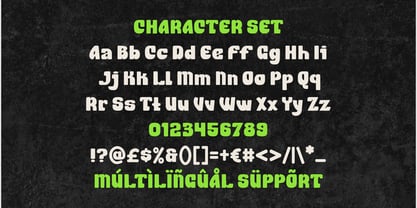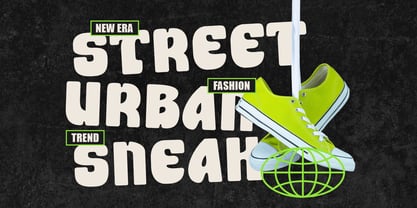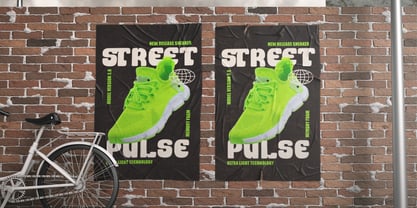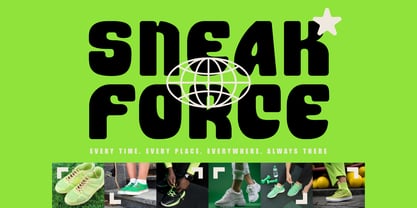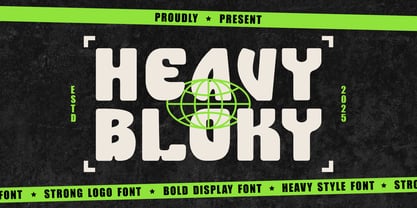
Heavy Bloky
by Shanaf
The Heavy Bloky Font Family was designed by Yesie Erma Yunita and published by Shanaf. Heavy Bloky contains 1 styles. More about this family
Heavy Bloky Strong Logo Font delivers a powerful visual punch with its extreme bold weight and compact structure. Each character is shaped with chunky proportions, firm curves, and wide silhouettes that demand attention in every layout. The font carries a heavy, dense appearance that feels both assertive and modern, making it ideal for branding that needs a confident and memorable voice. Its rounded block forms create a smooth rhythm, while the subtle quirks in letter shapes add a unique identity. The style leans firmly into bold display typography, offering a strong foundation for expressive logos, standout headlines, and impactful promotional designs. Heavy Bloky Strong Logo Font stays readable even at large scales, making it perfect for eye-catching posters, packaging, stickers, and business visuals. This font thrives in streetwear, urban branding, athletic promotions, and lifestyle products where a high-energy tone is needed. Its thick shapes naturally support dynamic layouts while keeping the message clear. The sturdy forms work well in digital and print, giving designers a reliable tool for bold marketing campaigns, standout product labels, and advertising compositions. Its heavy personality helps words feel grounded and powerful, encouraging strong brand recognition. Heavy Bloky Strong Logo Font is crafted for creators who want typography that looks fearless, expressive, and unmistakably strong. Use it for branding, headlines, posters, editorial titles, magazine covers, and any project that needs a confident visual punch.
Designers: Yesie Erma Yunita
Foundry: Shanaf